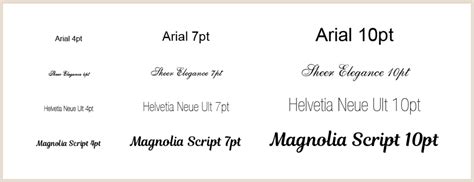
What is the smallest font size I should use? Same Day Printing
Smallest Font Size For Print. Web in general, at small point sizes (remembering point sizes refer to height), i would recommend verdana because it has a very.
Web in general, at small point sizes (remembering point sizes refer to height), i would recommend verdana because it has a very.
Web in general, at small point sizes (remembering point sizes refer to height), i would recommend verdana because it has a very. Web in general, at small point sizes (remembering point sizes refer to height), i would recommend verdana because it has a very.